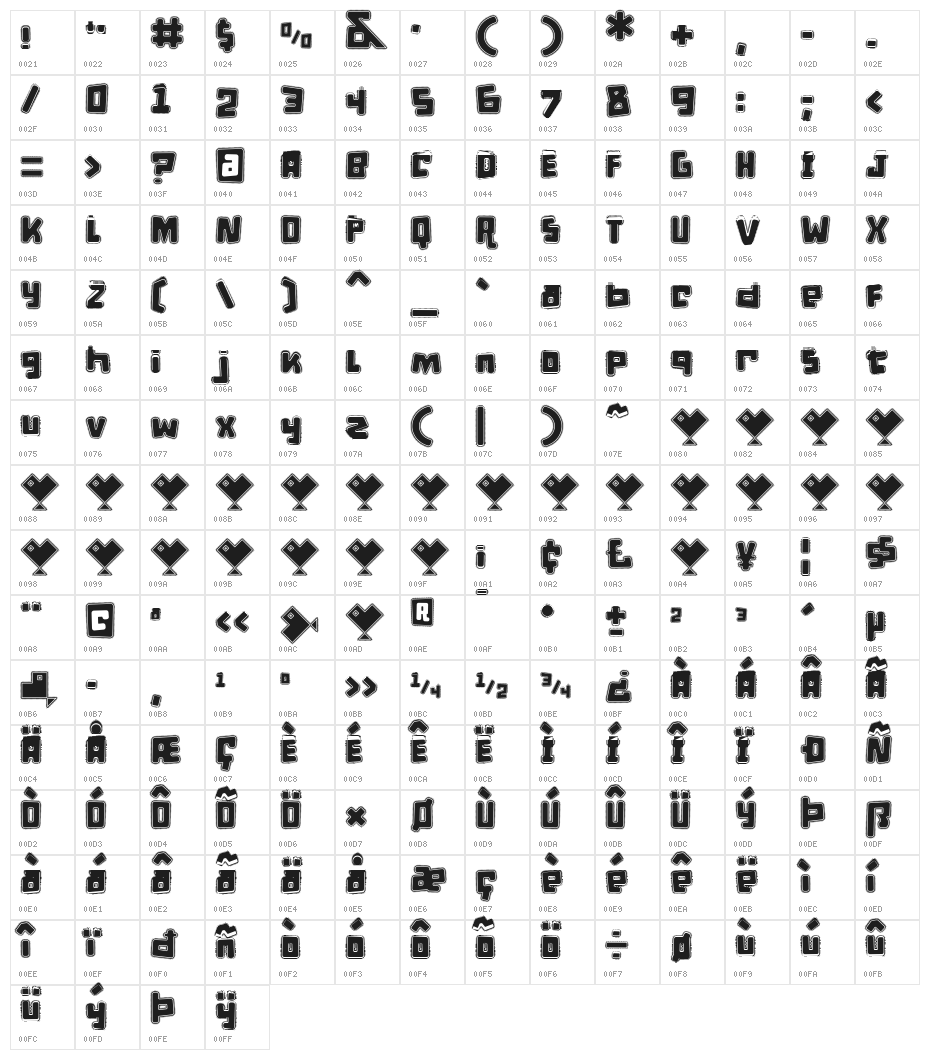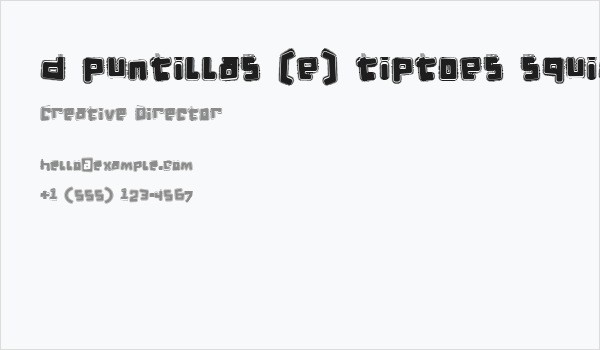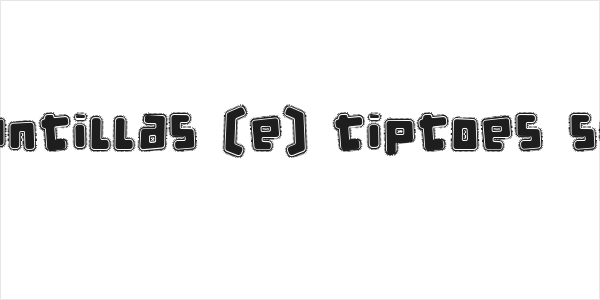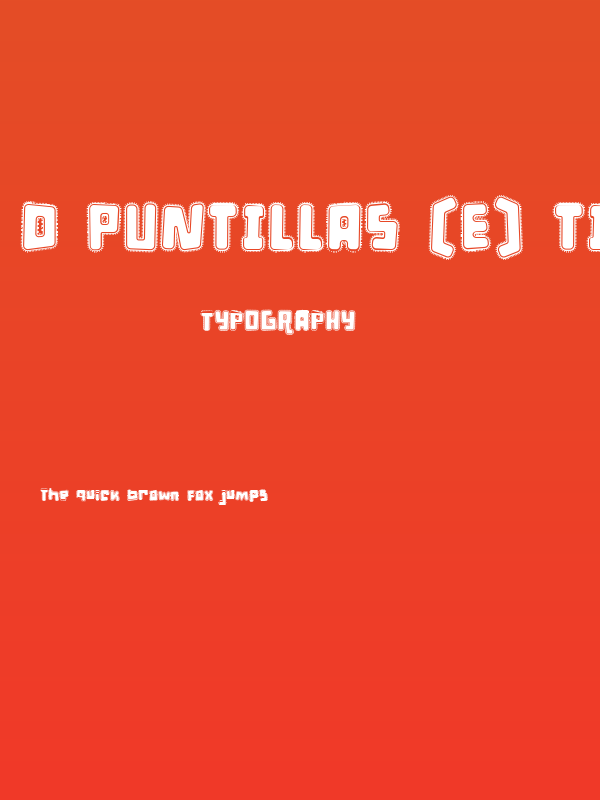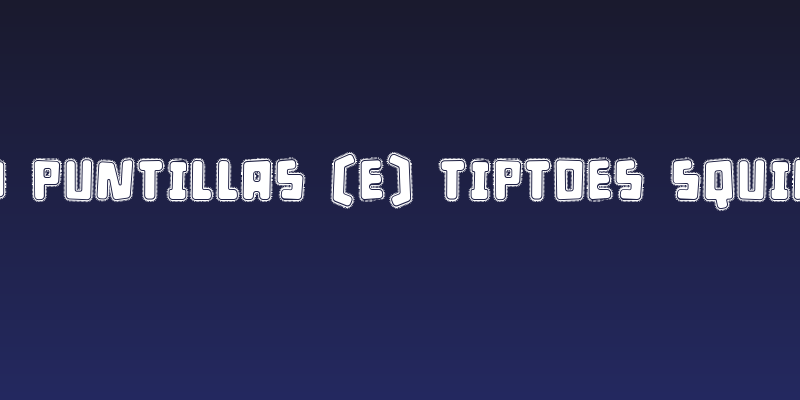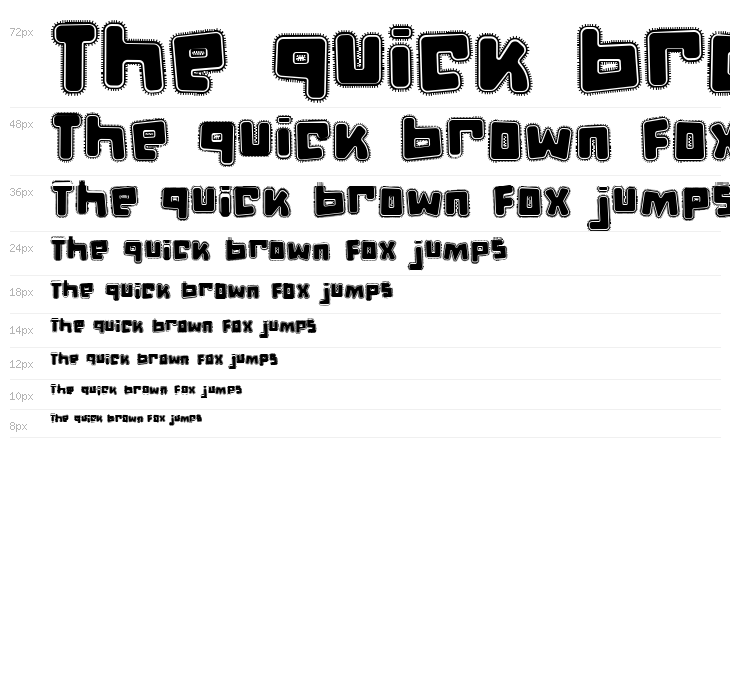
d puntillas [e] tiptoes squid Font
d puntillas [e] tiptoes squid Description
This font features a bold and playful design with a unique dotted outline that adds a whimsical touch. The characters are rounded and slightly condensed, giving them a compact appearance. The uppercase and lowercase letters maintain a consistent style, with a strong emphasis on geometric shapes. Numbers and special characters are designed to match the playful aesthetic, making the font suitable for creative and informal projects. The dotted outline provides a decorative element that enhances the overall visual appeal, making it stand out in various design contexts.
| Overall Style | Playful, Decorative |
| Proposed Projects | Ideal for children's books, playful branding, posters, and creative digital content. |